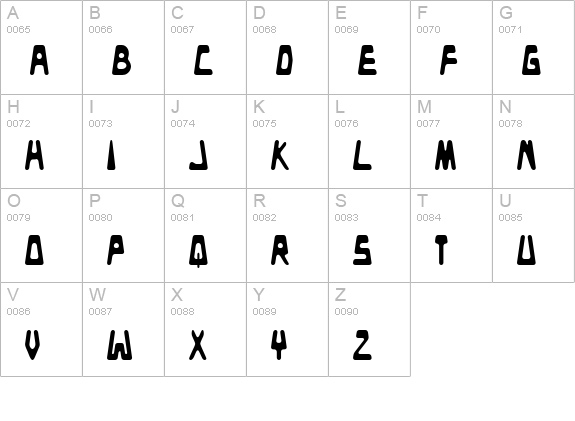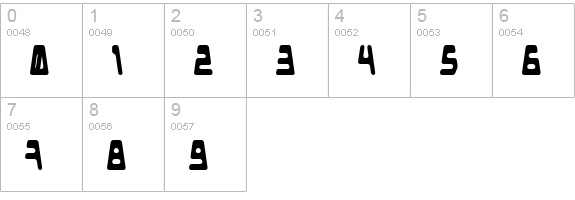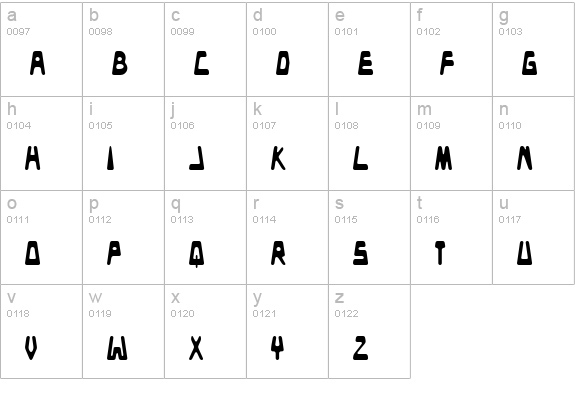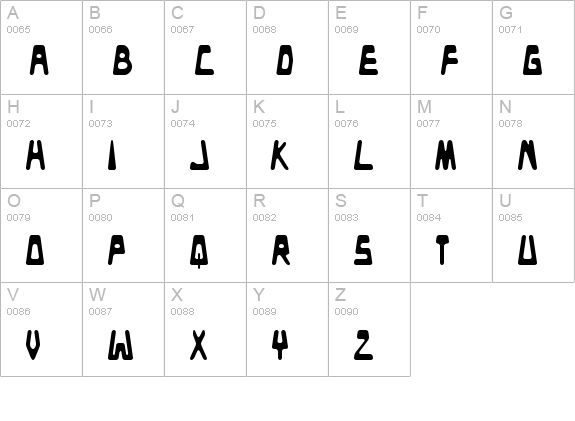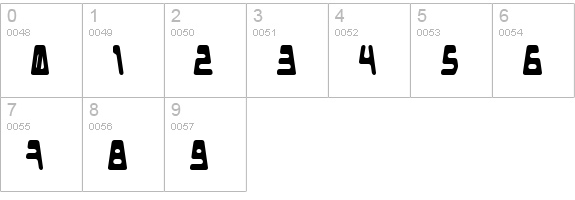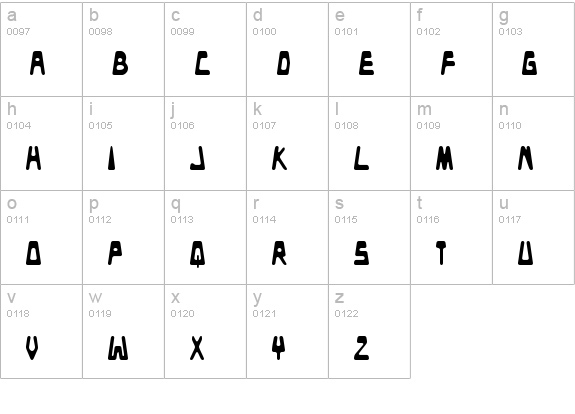
Danceclub Font Details
Introducing Danceclub, a vibrant and energetic font that will make your designs come alive on the dance floor! With its sleek and modern look, Danceclub is perfect for capturing the electrifying energy of the nightlife scene. Whether you're designing flyers for a trendy club event, creating eye-catching social media graphics, or crafting a logo for a cutting-edge dance company, this font will take your designs to new heights. Danceclub is not only visually stunning but also offers incredible versatility. Its bold and dynamic letterforms are designed to catch attention and convey movement, making it an ideal choice for any project that demands a touch of excitement. From posters to album covers, from website headings to party invitations, Danceclub will inject a burst of energy into any design. But the best part? Danceclub is completely free! That's right, this amazing font is freely available to download at FontsMarket.com. So you can unleash your creativity without worrying about breaking the bank. Say goodbye to expensive font licenses and hello to the freedom of expression. Download Danceclub today and let your designs groove to the rhythm of this captivating font. It's time to set the dancefloor on fire with the power of typography. Get ready to make a bold statement with Danceclub – the font that knows how to party!